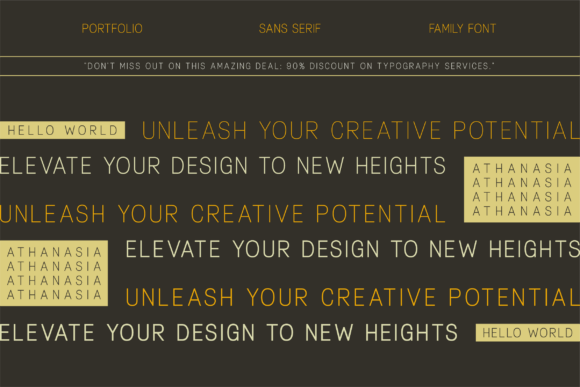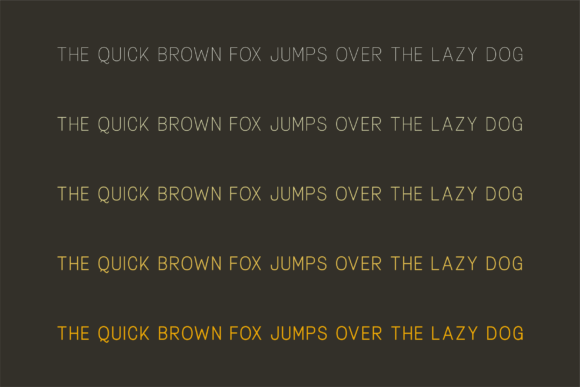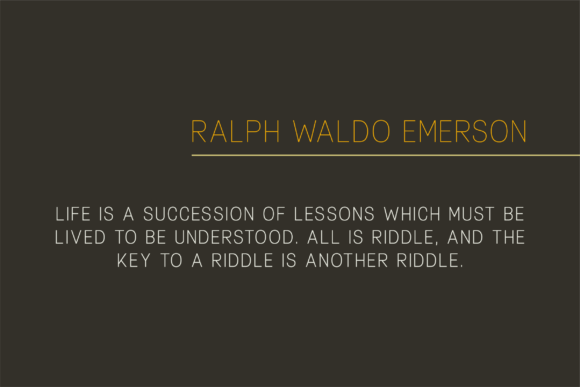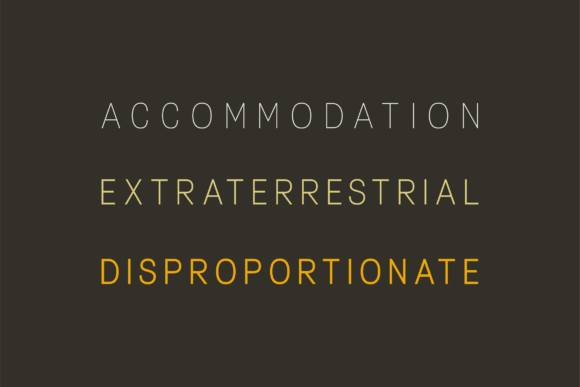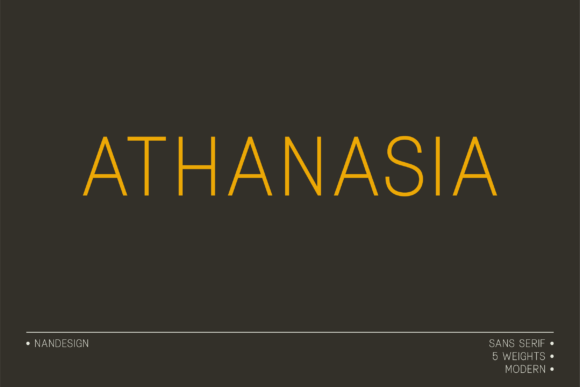
Introducing Athanasia Font Family — A Masterpiece of Elegance and Minimalism
In the realm of typography, few font families have managed to capture the essence of modern design as elegantly as Athanasia Font. This meticulously crafted sans-serif font family is a game-changer for designers and crafters looking to infuse their projects with a touch of sophistication and timeless charm. With its 5 distinct weights, Athanasia Font offers unparalleled versatility, making it the perfect choice for a wide range of applications, from magazines and logos to film posters and beyond.
The Design Philosophy Behind Athanasia Font
Athanasia Font was designed with a clear vision: to strike the perfect balance between sophistication and simplicity. The creators of this font family understood the importance of precision and attention to detail in modern design. As a result, Athanasia Font boasts clean lines, subtle curves, and an overall minimalist aesthetic that speaks to the contemporary design sensibilities of today.
The name “Athanasia” itself is a reflection of the font’s design philosophy. Derived from the Greek word for “immortality,” Athanasia Font aims to bring a sense of timelessness and enduring elegance to your designs. Whether you’re working on a luxury brand campaign, a high-end fashion magazine, or a cinematic masterpiece, Athanasia Font provides the perfect typographic solution.
Key Features of Athanasia Font Family
- 5 Distinct Weights: Athanasia Font offers a range of weights, from light to bold, allowing you to tailor your typography to the specific needs of your project. This versatility ensures that your designs can adapt seamlessly to different contexts and mediums.
- Sans-Serif Elegance: The clean, minimalist design of Athanasia Font makes it an ideal choice for projects where clarity and sophistication are paramount. Its sans-serif design ensures that your message is conveyed with precision and style.
- Contemporary Luxury: Athanasia Font embodies the essence of modern luxury, making it perfect for high-end branding, fashion, and design projects where exclusivity and refinement are key.
- Timeless Charm: Despite its contemporary appeal, Athanasia Font possesses a timeless quality that ensures your designs will remain relevant and stylish for years to come.
Unlocking Creativity with Athanasia Font
Athanasia Font is more than just a typeface; it’s a creative tool designed to unlock new levels of expression and innovation in your work. By incorporating Athanasia Font into your design projects, you can:
- Elevate Your Brand: Use Athanasia Font to create stunning logos, wordmarks, and typographic identities that exude luxury and sophistication.
- Transform Your Print Materials: From magazines and brochures to posters and flyers, Athanasia Font can elevate your print designs with its elegant and modern aesthetic.
- Enhance Your Digital Presence: Athanasia Font is optimized for digital use, making it perfect for websites, mobile apps, and social media graphics where clarity and readability are crucial.
Athanasia Font is a masterpiece of modern typography, offering designers and crafters a versatile, elegant, and timeless solution for their design needs. With its 5 distinct weights, sans-serif elegance, and contemporary luxury aesthetic, Athanasia Font family is poised to become a go-to choice for projects that demand the highest level of sophistication and style. By incorporating Athanasia Font into your creative arsenal, you’ll be able to transform your designs, elevate your brand, and unlock a new level of creativity.